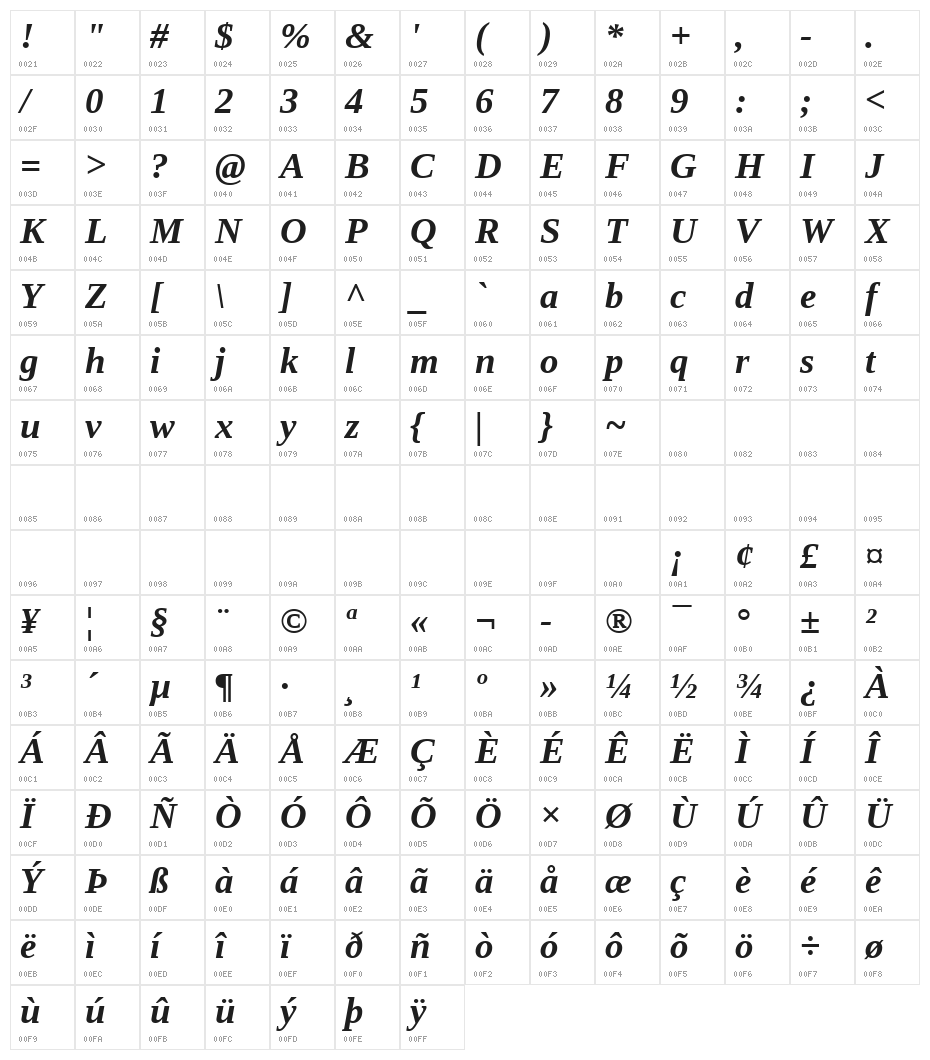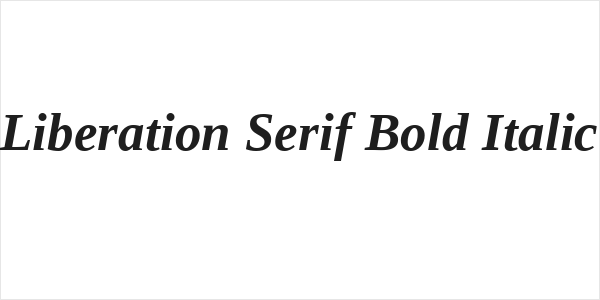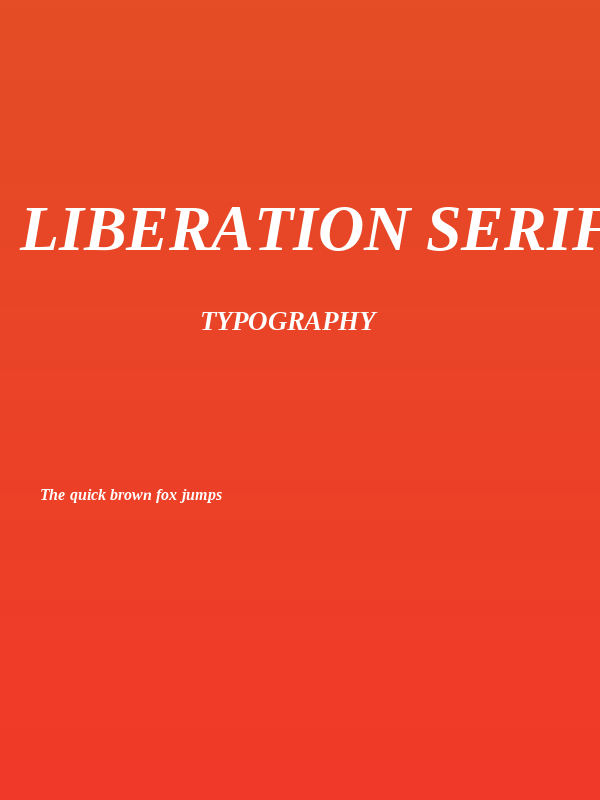
Liberation Serif Bold Italic Font
Liberation Serif Bold Italic Description
This font features a classic serif design with a bold and italicized style, providing a strong and elegant appearance. The serifs are well-defined, adding a touch of sophistication and readability. The italic slant gives it a dynamic and flowing character, making it suitable for both formal and creative applications. The bold weight ensures that the text stands out, while the overall structure maintains a traditional feel. The numerals and special characters are consistent with the font's style, offering a cohesive look across all elements.
| Proposed Projects | Ideal for book covers, formal invitations, branding materials, and editorial design. |